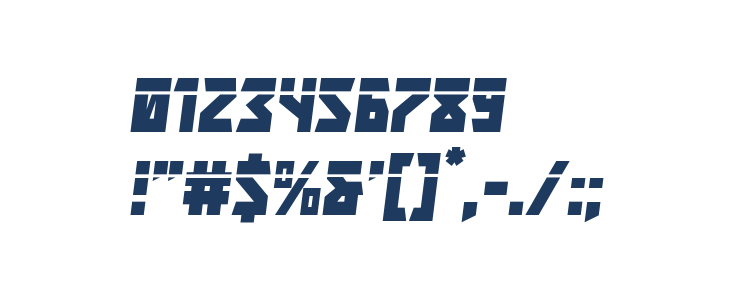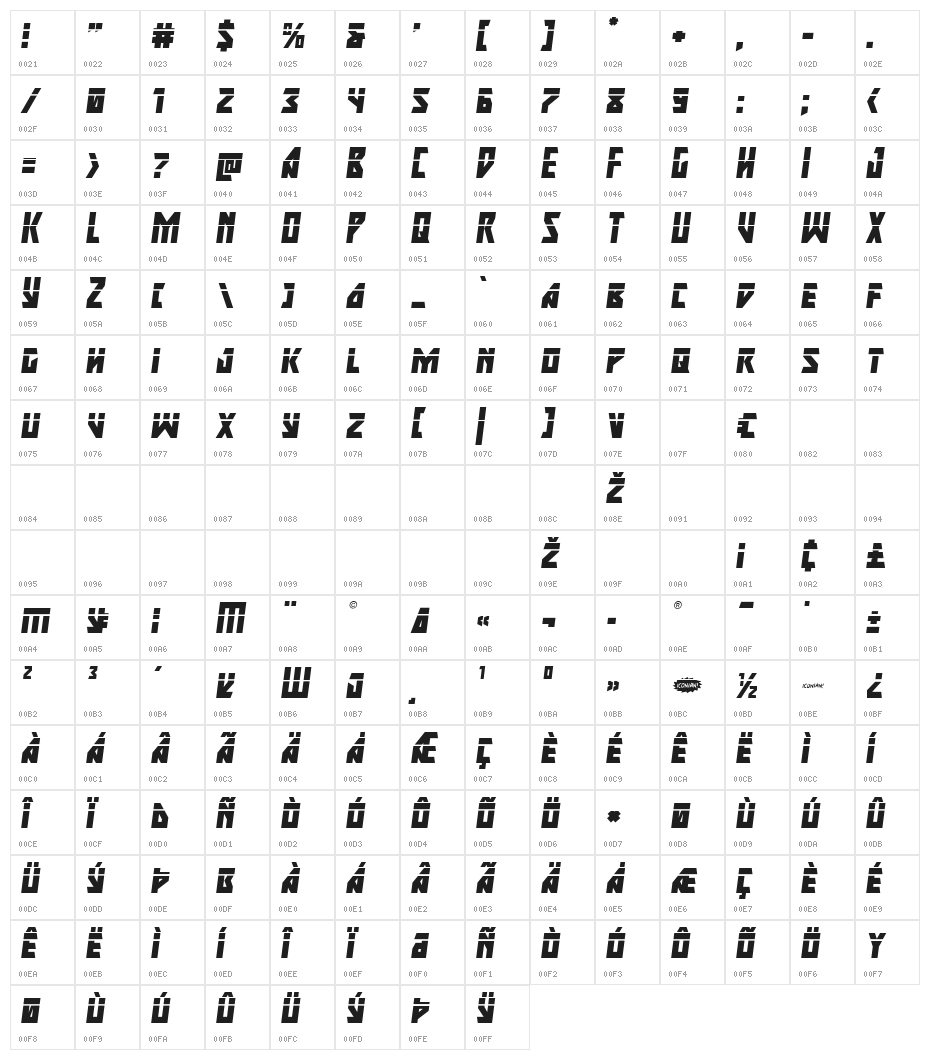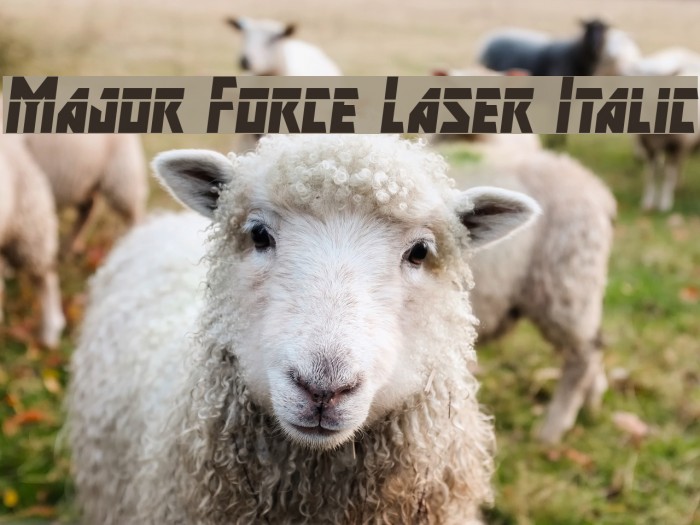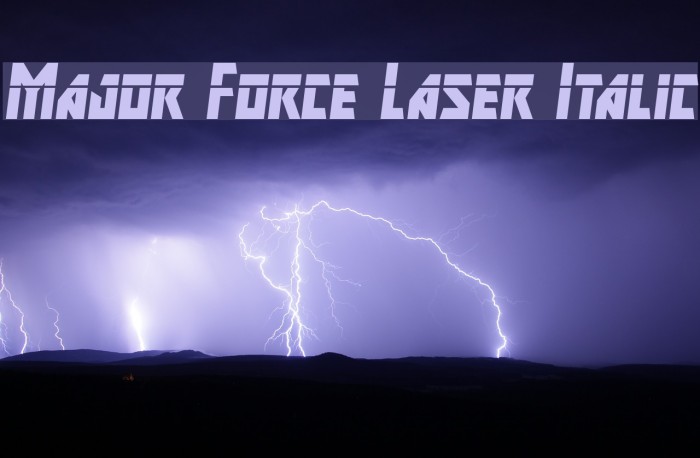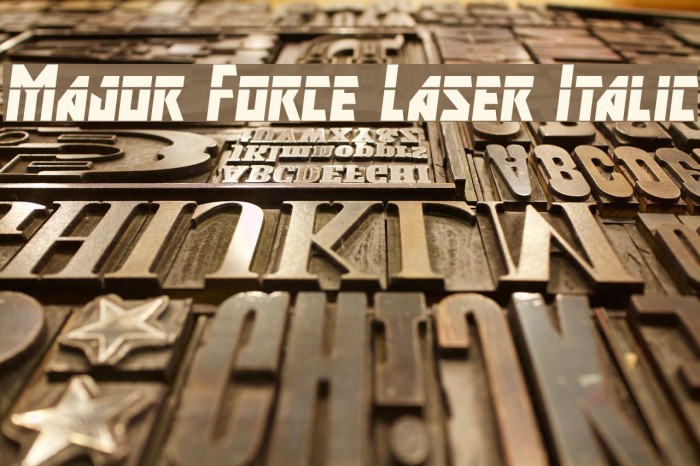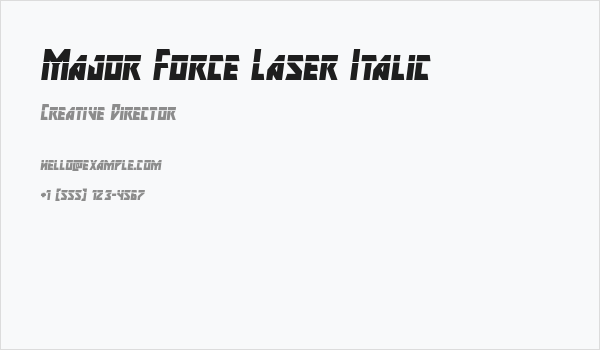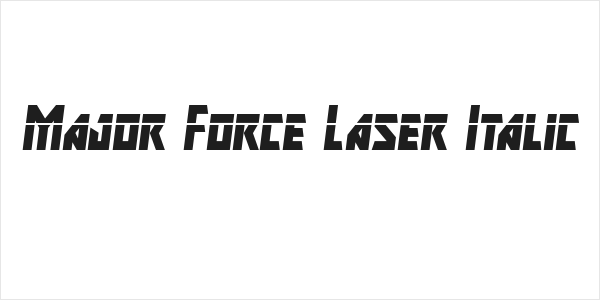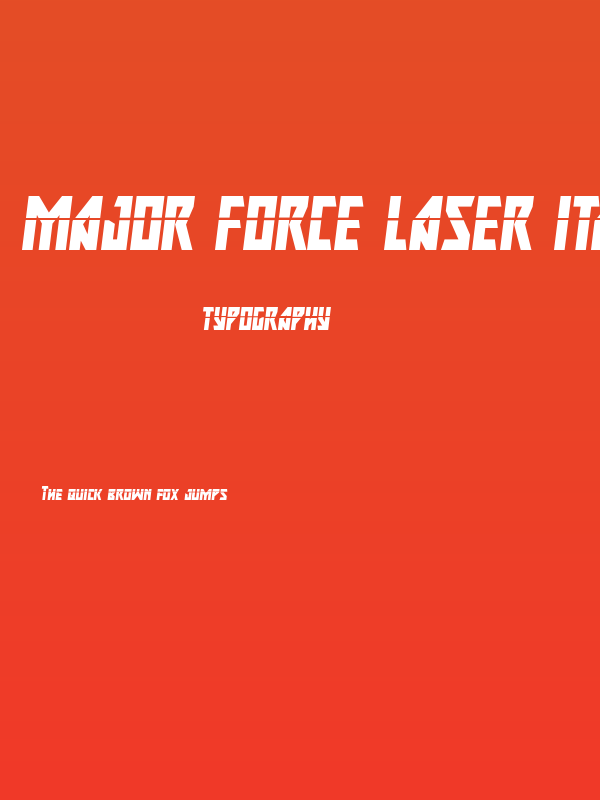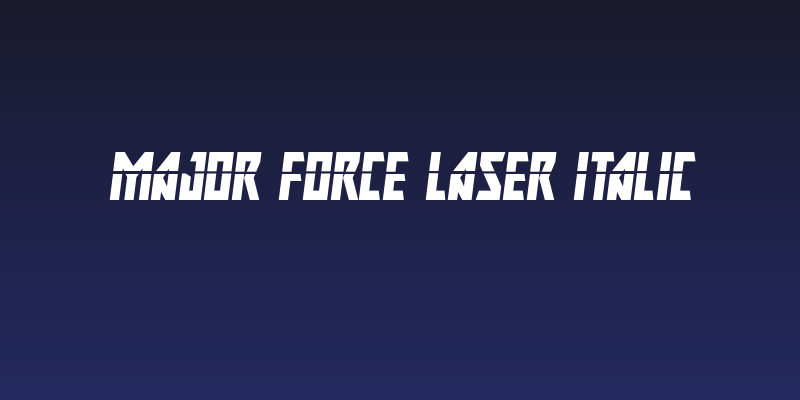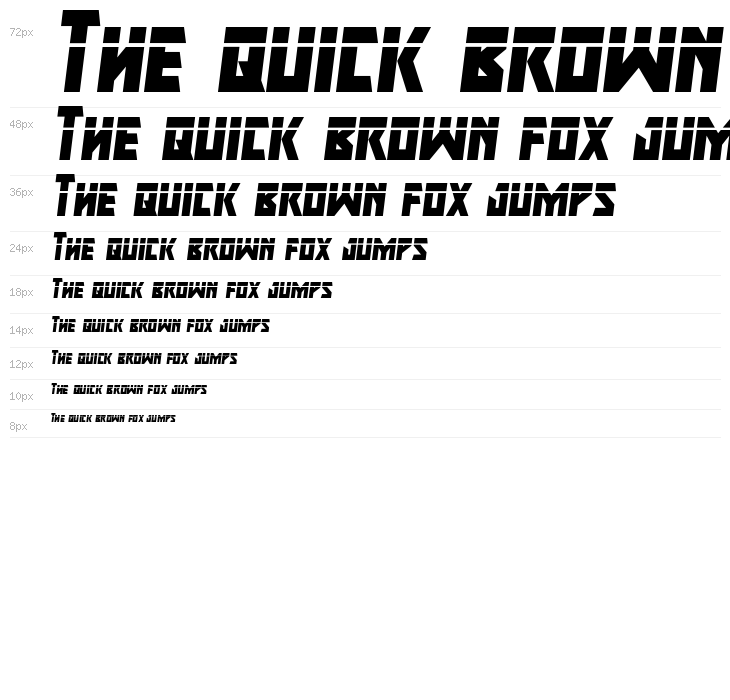
Major Force Laser Italic Font
Major Force Laser Italic Description
This font features a bold, futuristic design with sharp, angular lines and a distinct italic slant. The characters are heavily stylized, giving them a dynamic and aggressive appearance. The uppercase and lowercase letters maintain a consistent geometric structure, while the numbers and special characters complement the overall aesthetic. The font's design is reminiscent of science fiction and high-tech themes, making it ideal for projects that require a modern and edgy look. Its unique style ensures high visibility and impact, suitable for attention-grabbing headlines and logos.
| Proposed Projects | Ideal for sci-fi movie posters, video game titles, tech branding, and futuristic event flyers. |